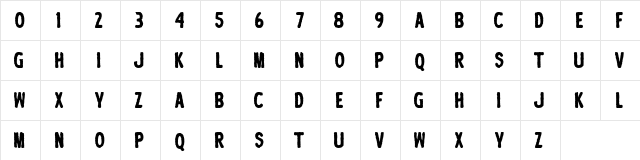
Postal Bold
Design Context for Postal Typeface
Postal takes a measured approach to typography — its balanced proportions and neutral character make it a reliable workhorse for both digital and print work. The heavy weight commands attention and anchors typographic hierarchies.